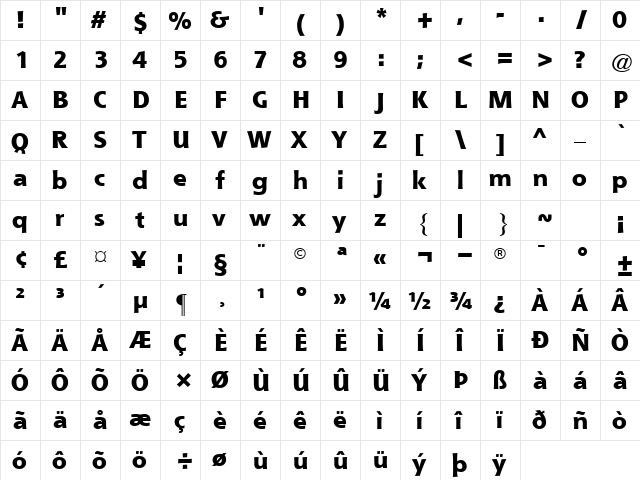
Shannon Extra Bold Regular
Design Context for Shannon Extra Bold Typeface
Shannon Extra Bold takes a measured approach to typography — its balanced proportions and neutral character make it a reliable workhorse for both digital and print work. The heavy weight commands attention and anchors typographic hierarchies.